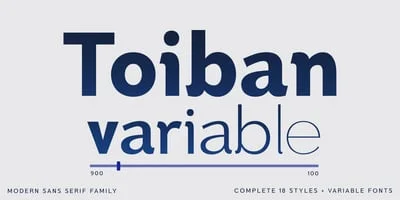
Toiban Font
The Toiban Font is perfect for creative agencies, artistic portfolios, contemporary gallery exhibitions, experimental design projects, indie music album covers, alternative fashion brands, conceptual advertising campaigns, and cutting-edge digital art installations. This distinctive typeface excels in applications where creative expression and artistic individuality are essential, making it ideal for both digital media and print materials that require unconventional typography with strong personality.
What makes Toiban Font exciting is its bold experimental nature and fearless approach to typographic conventions that challenges traditional design boundaries. The font's unique character construction and innovative letterforms create an atmosphere of creative rebellion and artistic freedom, making it perfect for brands and projects that want to stand out from mainstream design trends. Its distinctive visual language speaks to audiences who appreciate originality and artistic courage in contemporary design.
The Toiban Font family typically includes regular and bold weights, often featuring experimental alternates, artistic variations, and special characters that enhance its creative versatility. Many versions include contextual ligatures, stylistic sets, and decorative elements that provide designers with extensive tools for creating unique and memorable typographic compositions that push creative boundaries.
For designers seeking to create projects that demand artistic distinction and creative authenticity, Toiban Font provides exceptional creative freedom. Its ability to instantly communicate innovation and artistic integrity makes it an essential choice for creative professionals, experimental brands, and any project requiring typography that embodies unconventional thinking and contemporary artistic expression.